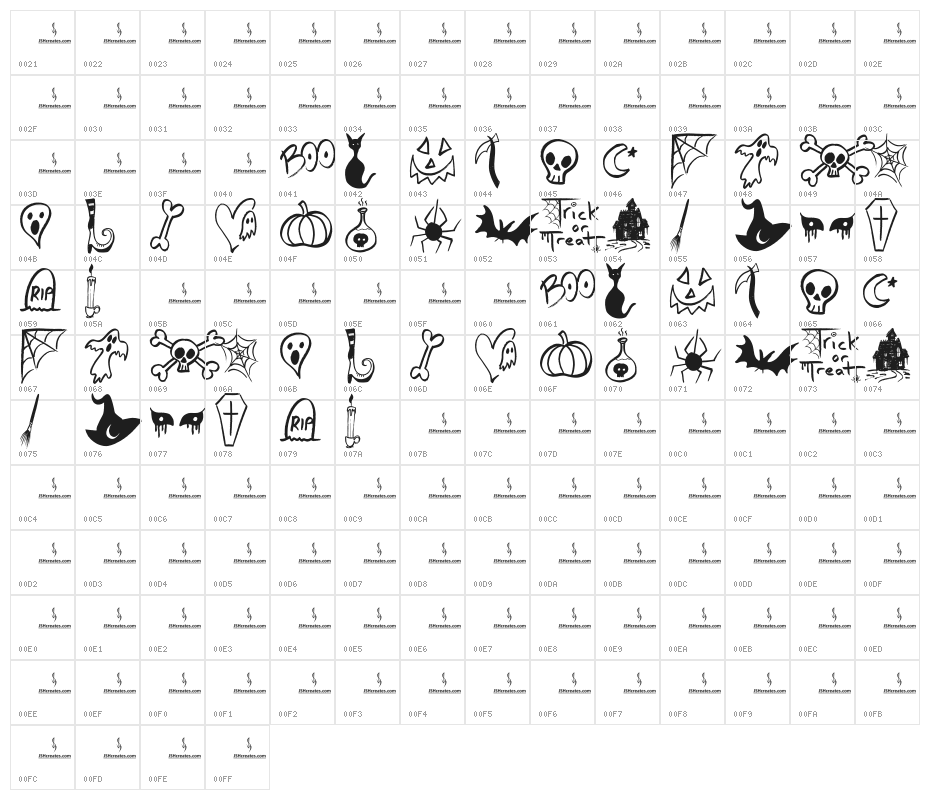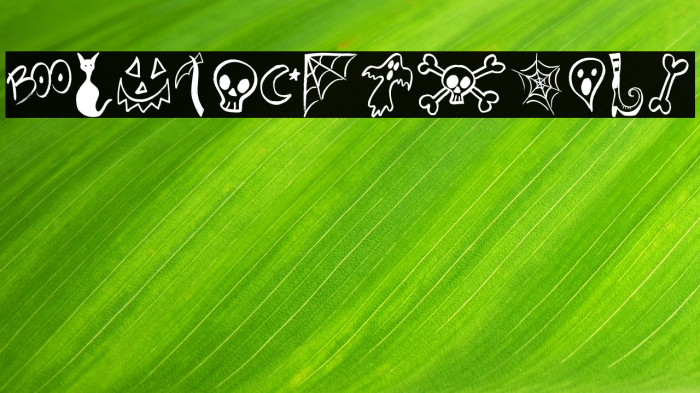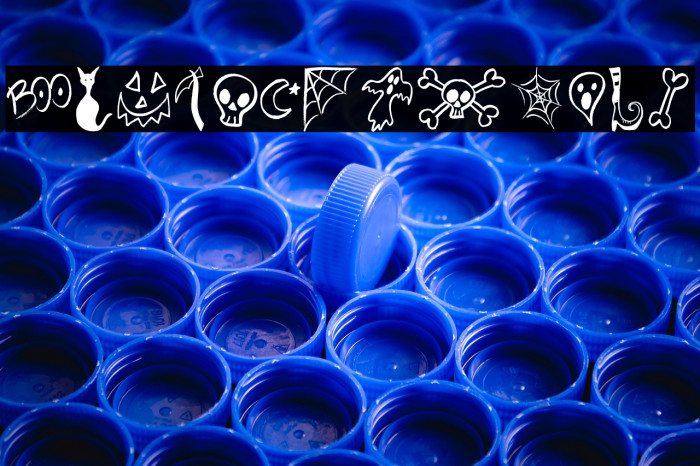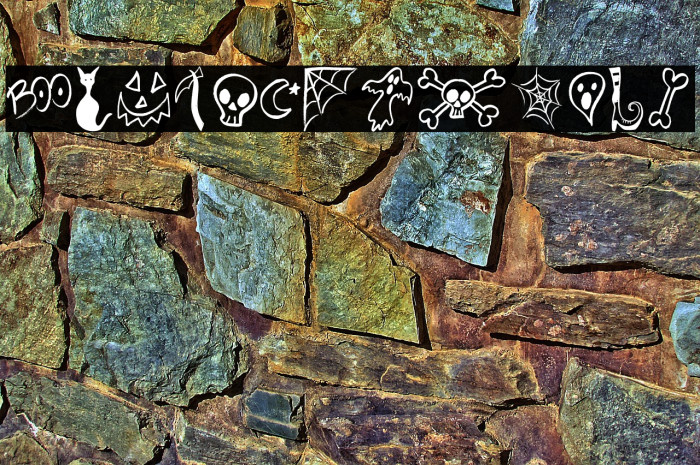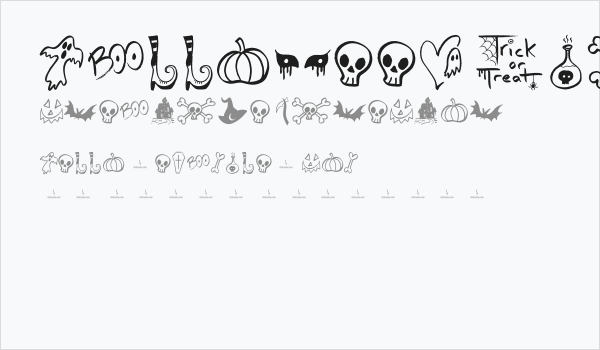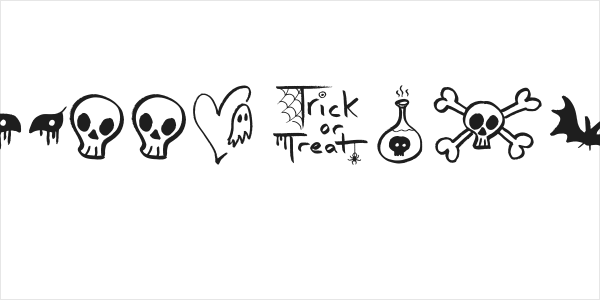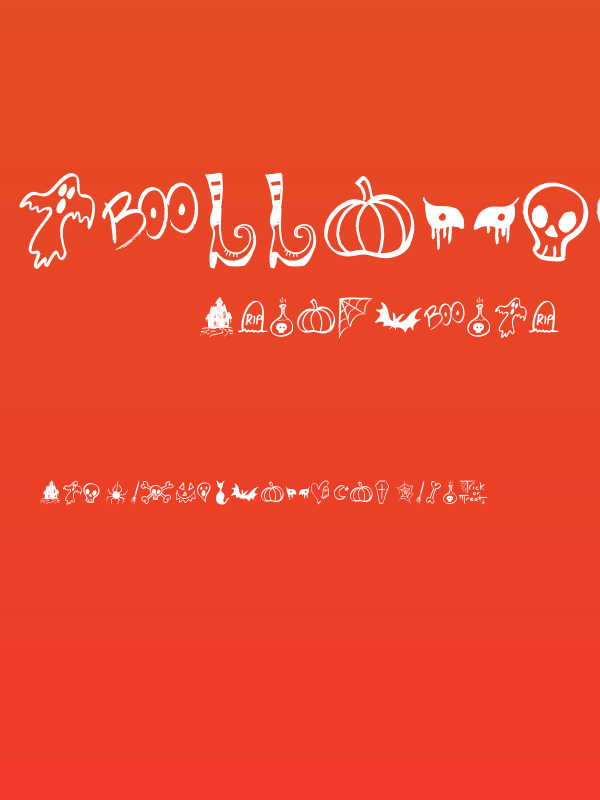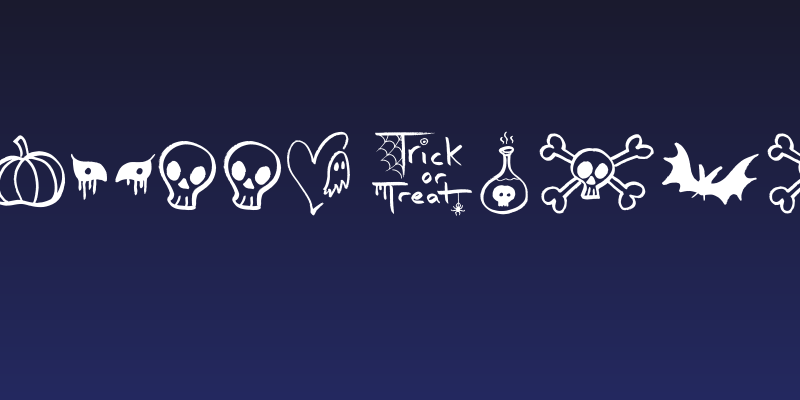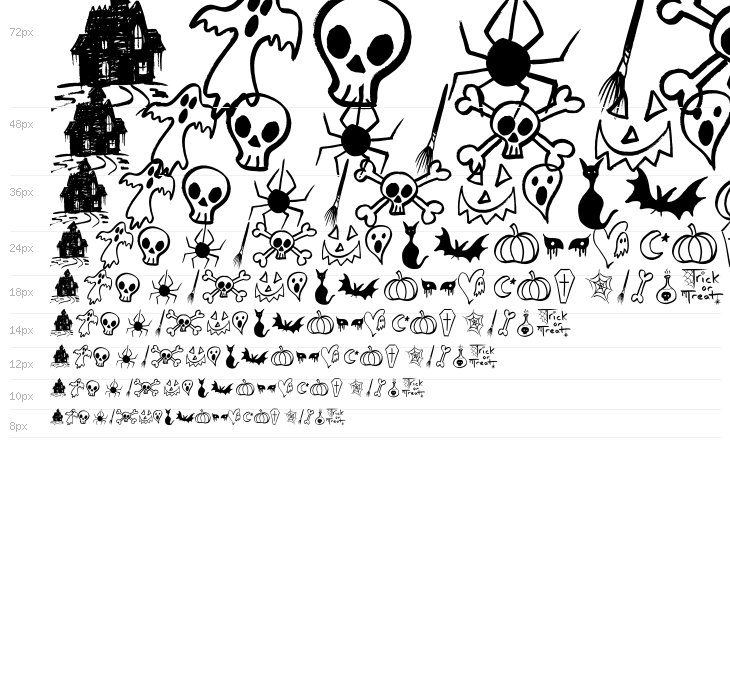
Halloween Spirits Font
Halloween Spirits Description
This font is a playful and spooky collection of Halloween-themed icons and symbols. It features a variety of elements such as pumpkins, ghosts, skulls, bats, and witches' hats, all designed with a whimsical and cartoonish style. The characters are bold and expressive, capturing the essence of Halloween with a fun and lighthearted twist. The icons are perfect for adding a festive touch to any Halloween project, from party invitations to decorations. The style is consistent throughout, with each symbol maintaining a balance between detail and simplicity, making them easily recognizable and visually appealing.
Use CaseLogos, Headlines, Decorative elements
Proposed ProjectsIdeal for Halloween party invitations, decorations, themed posters, and festive social media graphics.